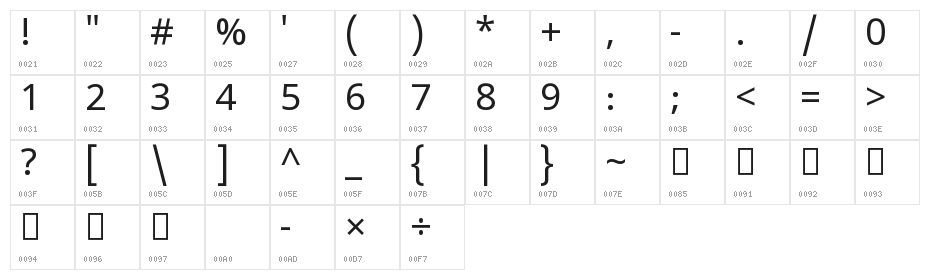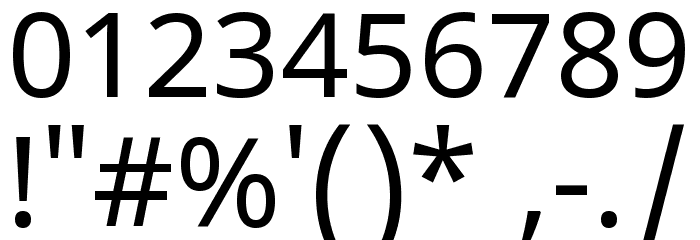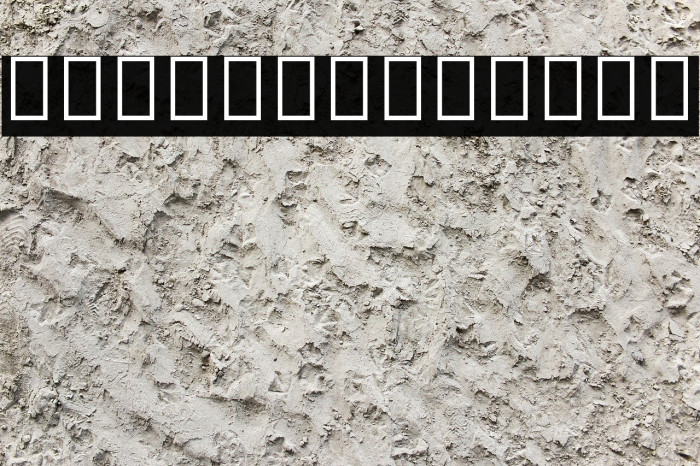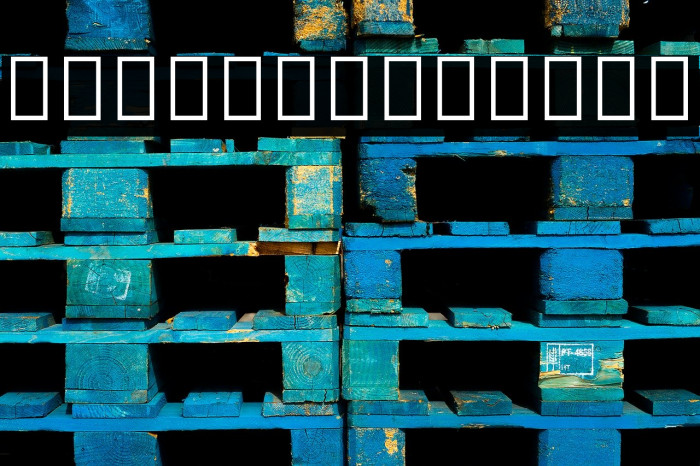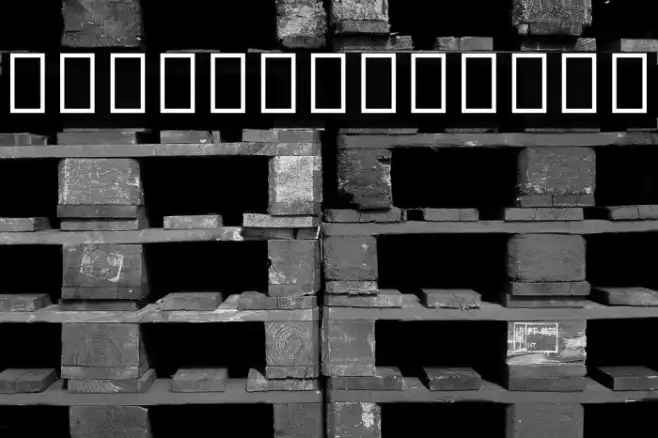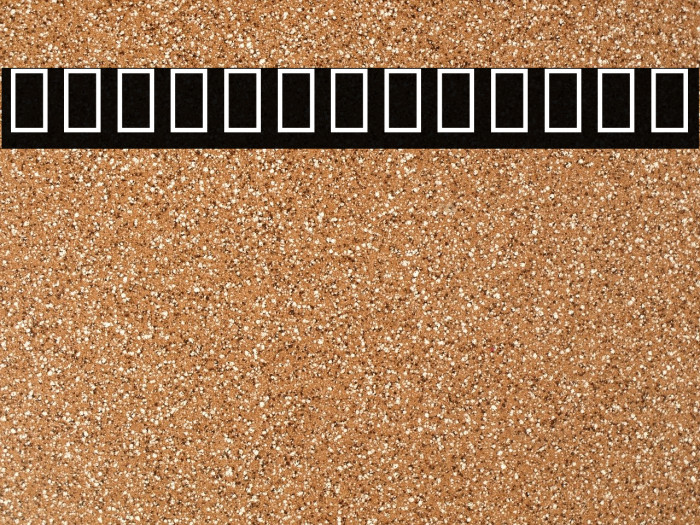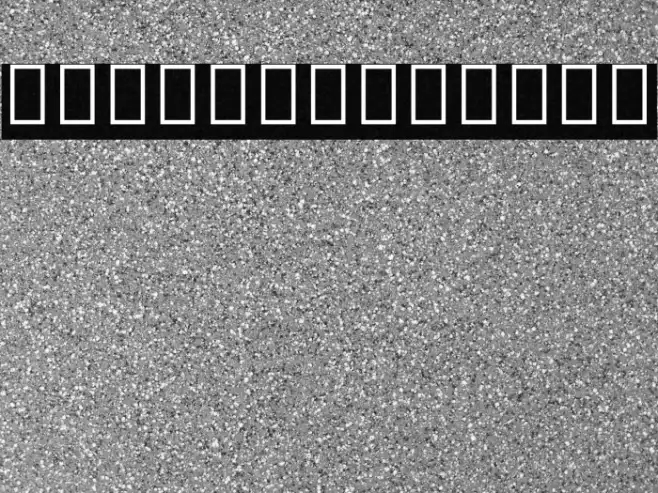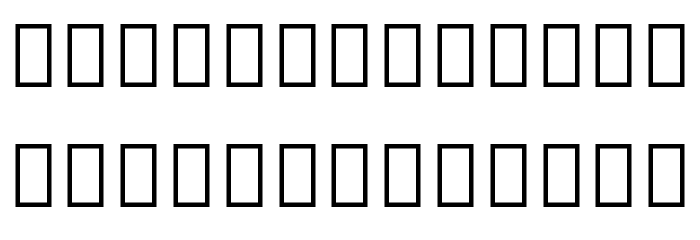
Noto Sans Kannada UI Font
Noto Sans Kannada UI Description
This font is designed specifically for the Kannada script, offering a clean and modern appearance suitable for user interfaces. It features a sans-serif style, providing clarity and readability across digital platforms. The characters are well-proportioned, with a consistent stroke width that ensures uniformity and balance. The numerals and special characters are crafted to match the overall aesthetic, maintaining the font's cohesive look. This typeface is ideal for digital applications where legibility and a contemporary feel are essential.
| Use Case | Headlines, Body text, UI design |
| Proposed Projects | This font is perfect for app interfaces, website design, and digital content where Kannada script is used. It can also be utilized in educational materials and e-books. |